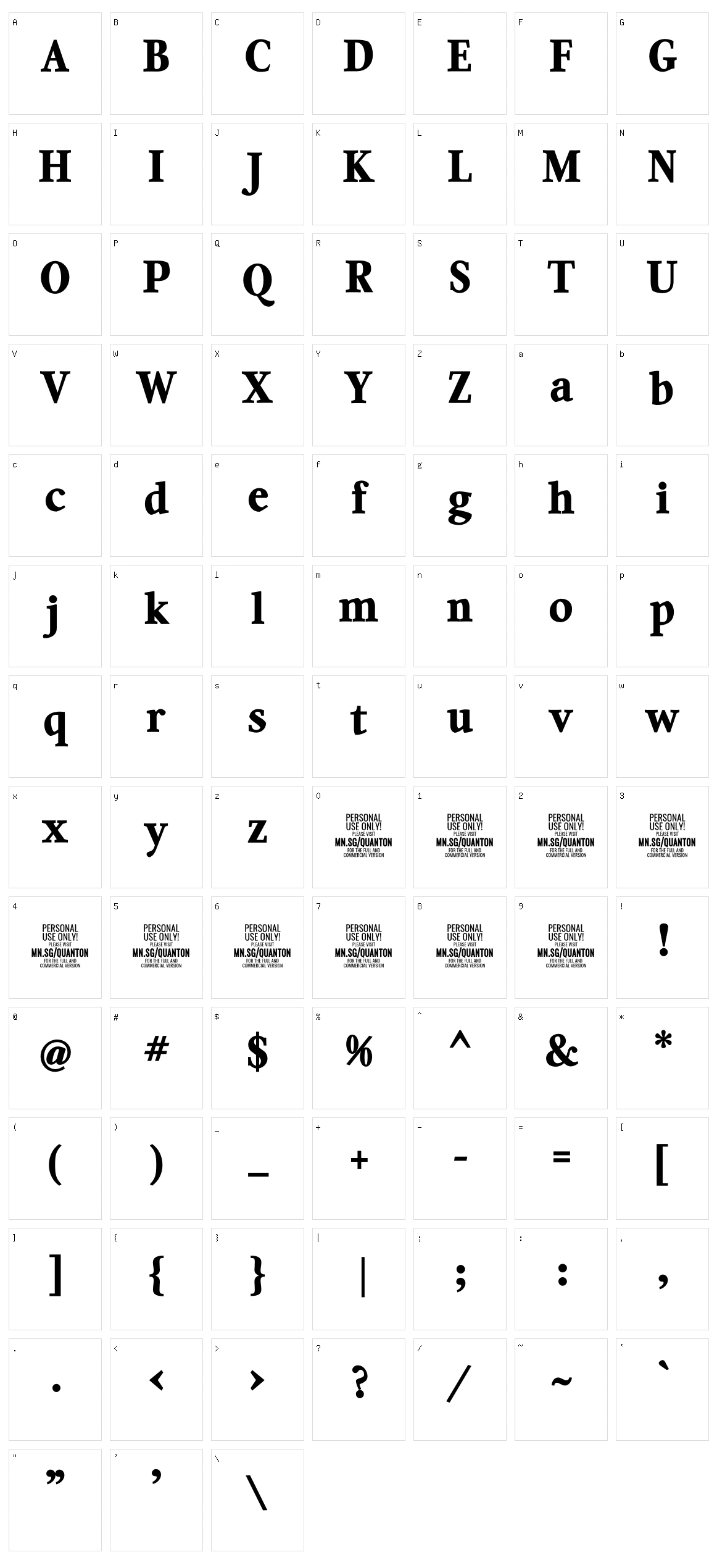
Quanton is a clear serif typeface in a modern style.
Its sharp edges and soft curves combines to the perfect balance of tradition and innovation.
Quanton has character and personality, while keeping regular and maintaining its legibility, making for an optimal headline and bodytext style.
The Quanton family consists of eight typeface styles:
The weights Thin, Medium, Bold and Black, and each thickness as Italic.
The font is built with advanced OpenType functionality and has a guaranteed top-notch quality, containing stylistic and contextual alternates, ligatures and more features; all to give you full control and customizability.
It has extensive lingual support, covering Arabic and all Latin-based languages, from North Europe to South Africa, from America to South-East Asia.
It contains all characters and symbols you'll ever need, including all punctuation and numbers.